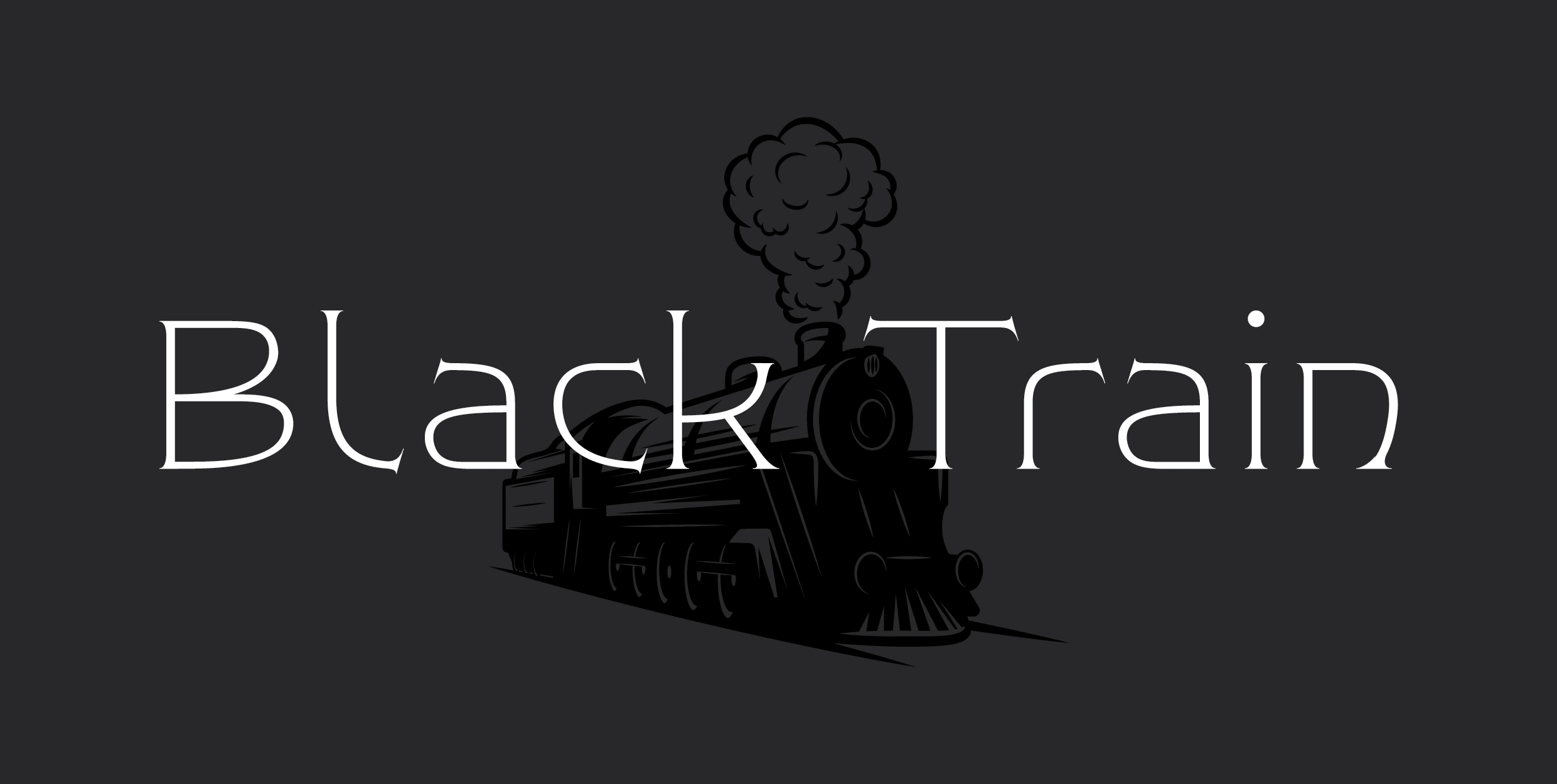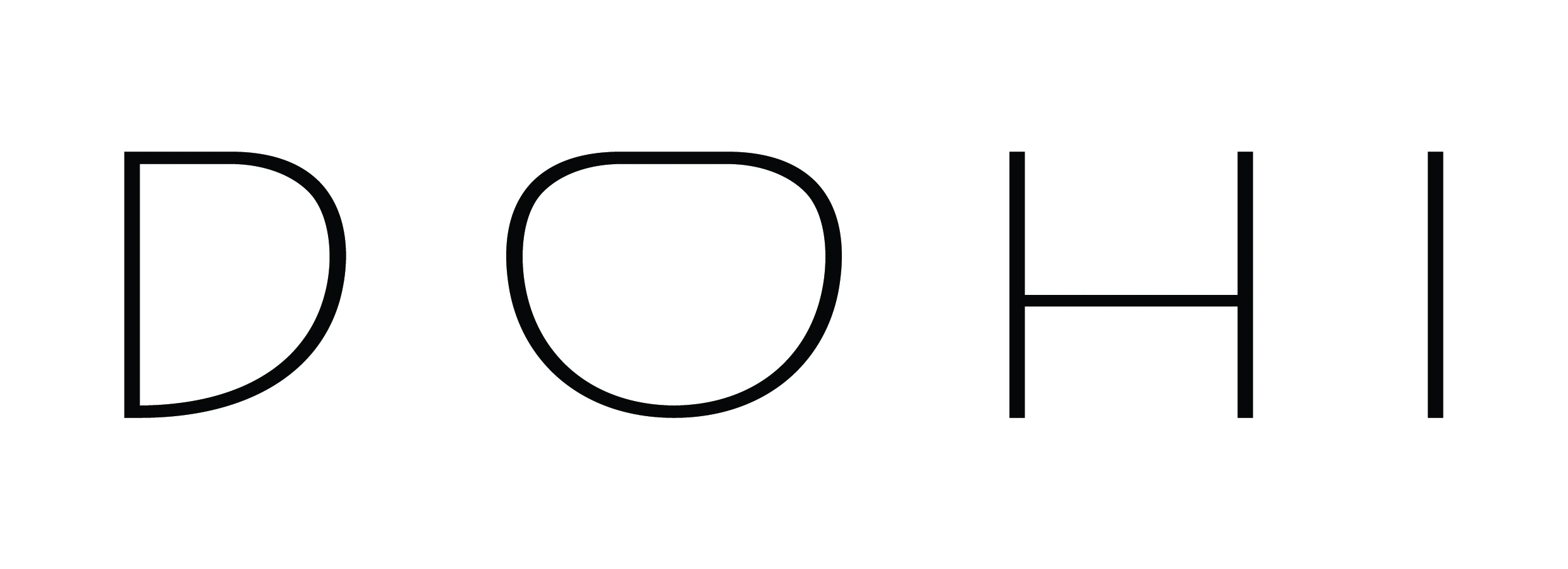
I have always been drawn to retro and vintage typefaces because of their diversity in design and the way they combine different styles. I am particularly fascinated by typefaces in which several distinct design concepts—seemingly unrelated at first glance—are successfully integrated throughout the entire font, resulting in a cohesive and well-functioning whole. This is my attempt to create such a typeface, with pronounced decorative characteristics, but one that I hope is also practical, under the working title Black Train.
My initial and direct inspiration came from Art Nouveau and Art Deco typefaces. In order to avoid merely replicating existing features from those styles, I chose an approach I always use in such cases: modernizing vintage design for contemporary application—introducing different proportions, stroke relationships and stem structures closer to sans-serif typefaces, along with details intended to distinguish this font from others of a similar style.
Samples from Bauersche Gießerei specimen.
The design of the first few characters was done in a sans style, with subtle contrasts in stroke thickness. For now, the plan is for the letter design to be based more on a sans structure, with fewer decorative and calligraphic elements.
Serifs have been added to several new characters. I opted for serifs that combine multiple styles, forming a hybrid of Transitional and Humanist/Old Style: thin, slightly curved, with terminals that carry a subtle calligraphic note, including certain outgoing calligraphic strokes.
All basic uppercase and lowercase Latin letters have also been completed, making it now possible to display full words and get a clearer sense of what kind of typeface this is intended to be.
Numbers have been added, as well as certain punctuation marks and mathematical characters (which are not shown in the example). The next phase is to create all remaining characters in order to complete the desired character map.
The font was officially completed today. In short, it includes an Extended Latin character set and support for Latin-based languages. As for OpenType features, it includes Standard Ligatures, Fractions, and 4× Stylistic Sets. The weight range goes from Light to Black, with a total of seven weights: Light, Regular, Medium, Semi Bold, Bold, Extra Bold, and Black.